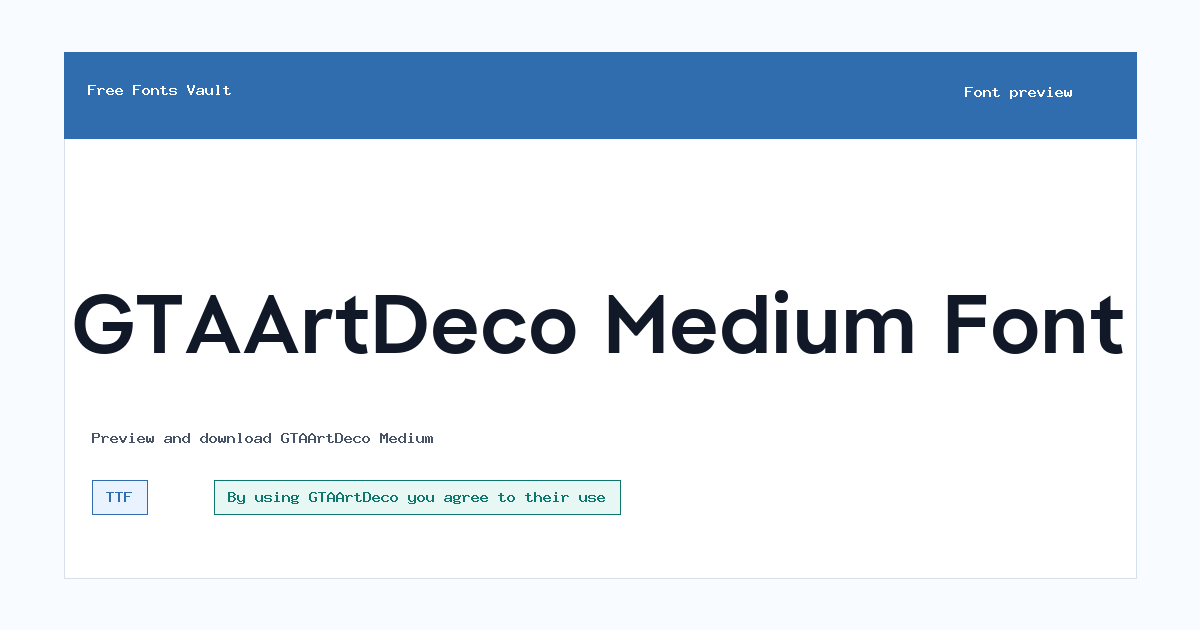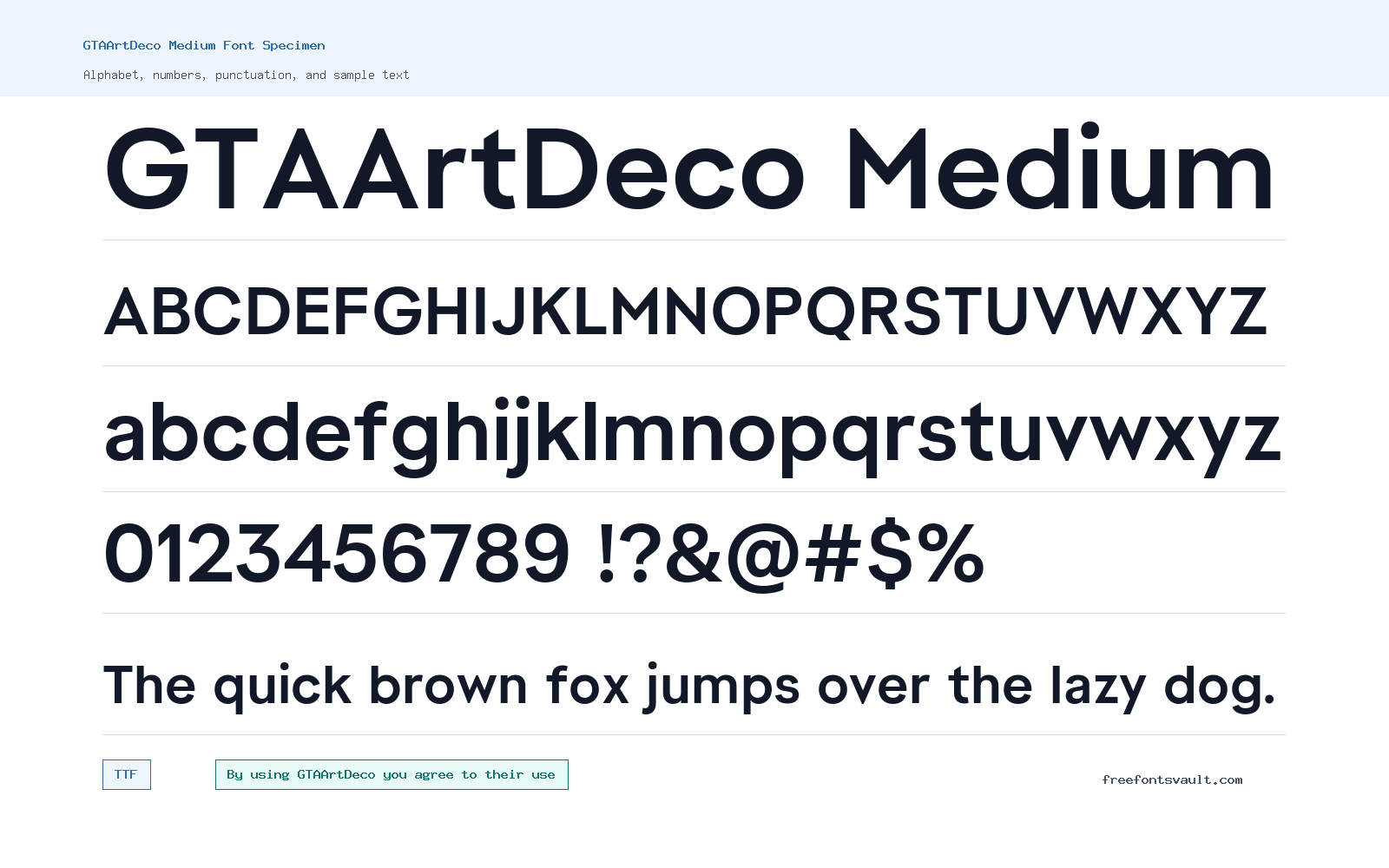
GTAArtDeco Medium
- Designer Colophon Foundry
- Foundry Colophon Foundry
GTAArtDeco Medium font.
GTAArtDeco Medium is a mid-weight style of the GTAArtDeco family, associated in public reference pages with GTA 6 branding and Rockstar-related materials. Its license is highly restricted, so treat it as brand-font material rather than a general-use font.
About GTAArtDeco Medium
GTAArtDeco Medium has a clean display feel with Art Deco influence: structured letterforms, firm verticals, and a polished headline rhythm. The Medium cut gives the design more presence than a regular weight without becoming as heavy as a bold style, which makes it useful for previewing short titles, menu-style wording, and compact branding tests.
- Medium 500 weight for stronger display text without full bold density
- Useful for comparing medium-weight GTAArtDeco lettering against regular, bold, or condensed variants in a private preview
- Short previews, title mockups, and typography comparison
Colophon Foundry is named as the designer/foundry in the font information. Public reference pages also connect GTAArtDeco with Rockstar Games related branding.
Who made GTAArtDeco Medium?
The font information names Colophon Foundry as the designer and foundry. A public fan reference also says GTAArtDeco was created by Colophon Foundry for Rockstar Games.